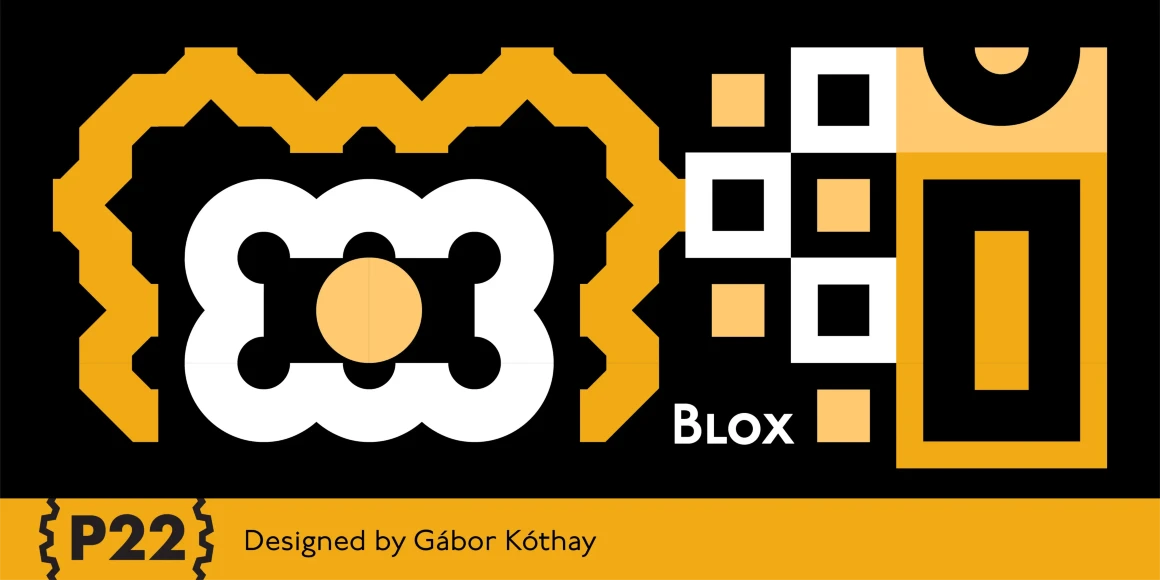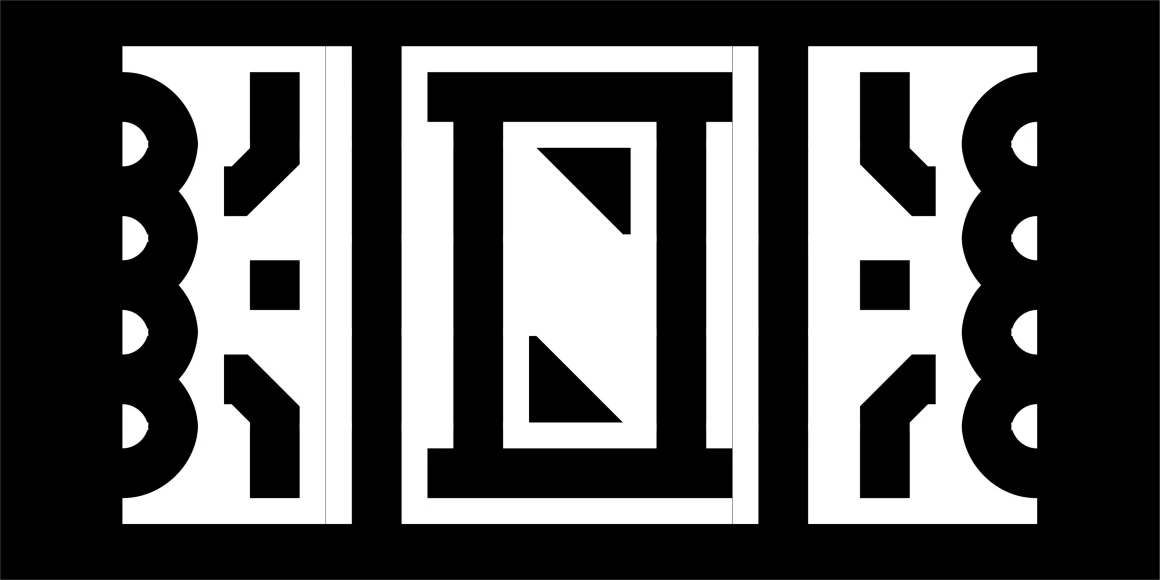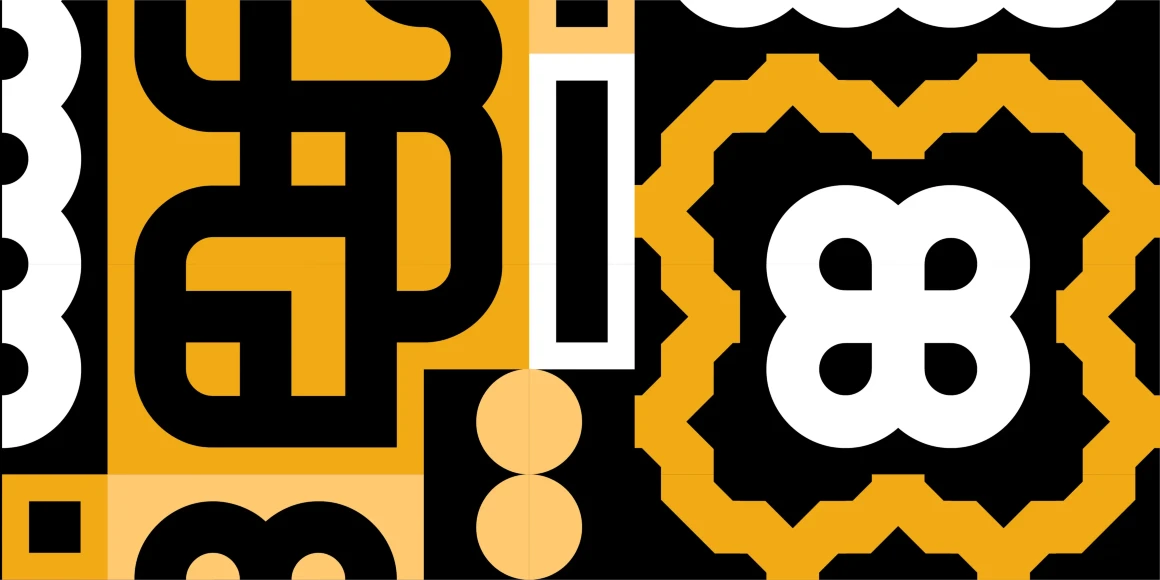
Blox
P22 Blox is a modular system of shapes that can build letterforms and abstract patterns. Created as a working prototype for the letterpress P22 Blox project from P22 Analog and Starshaped Press, this system of shapes presents a unique approach to designing letterforms with a limited set of variables. Based on the American Type Founders 1944 modular metal type ornament system… you can have hours of fun building letters, patterns and more.
Designed by Richard Kegler